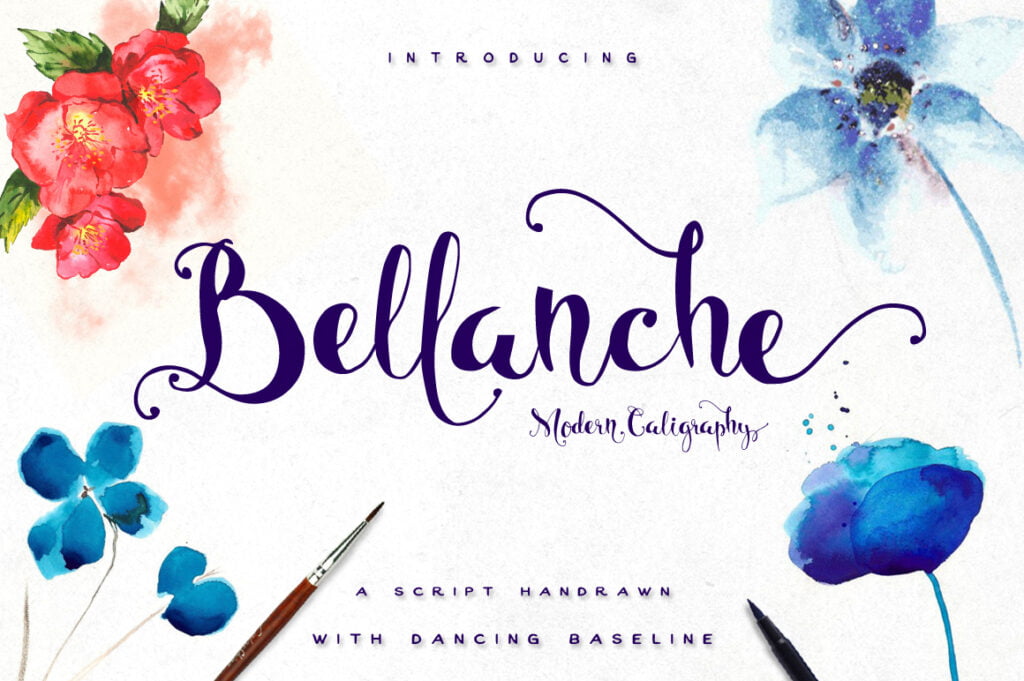
Bellanche Font
Bellanche Font is an elegant calligraphy script. It has flirty, decorative end characters and a dancing baseline. It’s perfect for wedding invitations, branding materials, blog headers, business cards, and for every other design which needs a girly, romantic font.
Bellanche Script Calligraphy Font